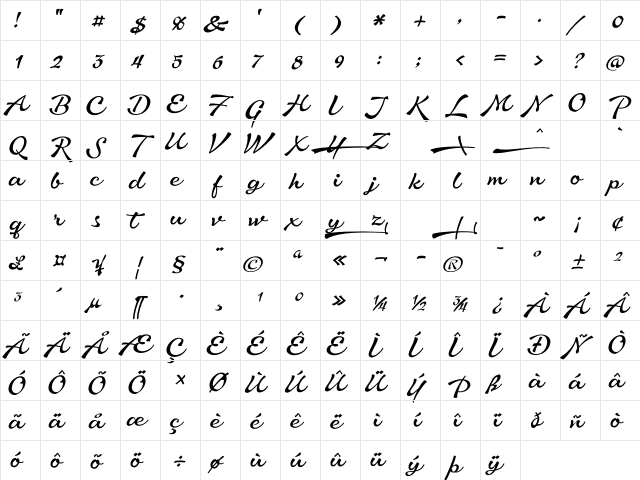
Aromia Script Thin Regular
| Designer | Mans Greback |
Design Context for Aromia Script Thin Typeface
Aromia Script Thin brings a calligraphic fluidity to the page — its connecting strokes and expressive curves give it an unmistakably human quality. Its slender proportions lend an understated elegance to any composition.
Font Pairing: Combine Aromia Script Thin with a simple geometric sans for maximum contrast — the tension between flowing curves and clean structure is a classic typographic pairing.
Pro Tip: Use Aromia Script Thin for short runs of text — names, titles, or taglines. Extended body copy in script faces tires the eye quickly.